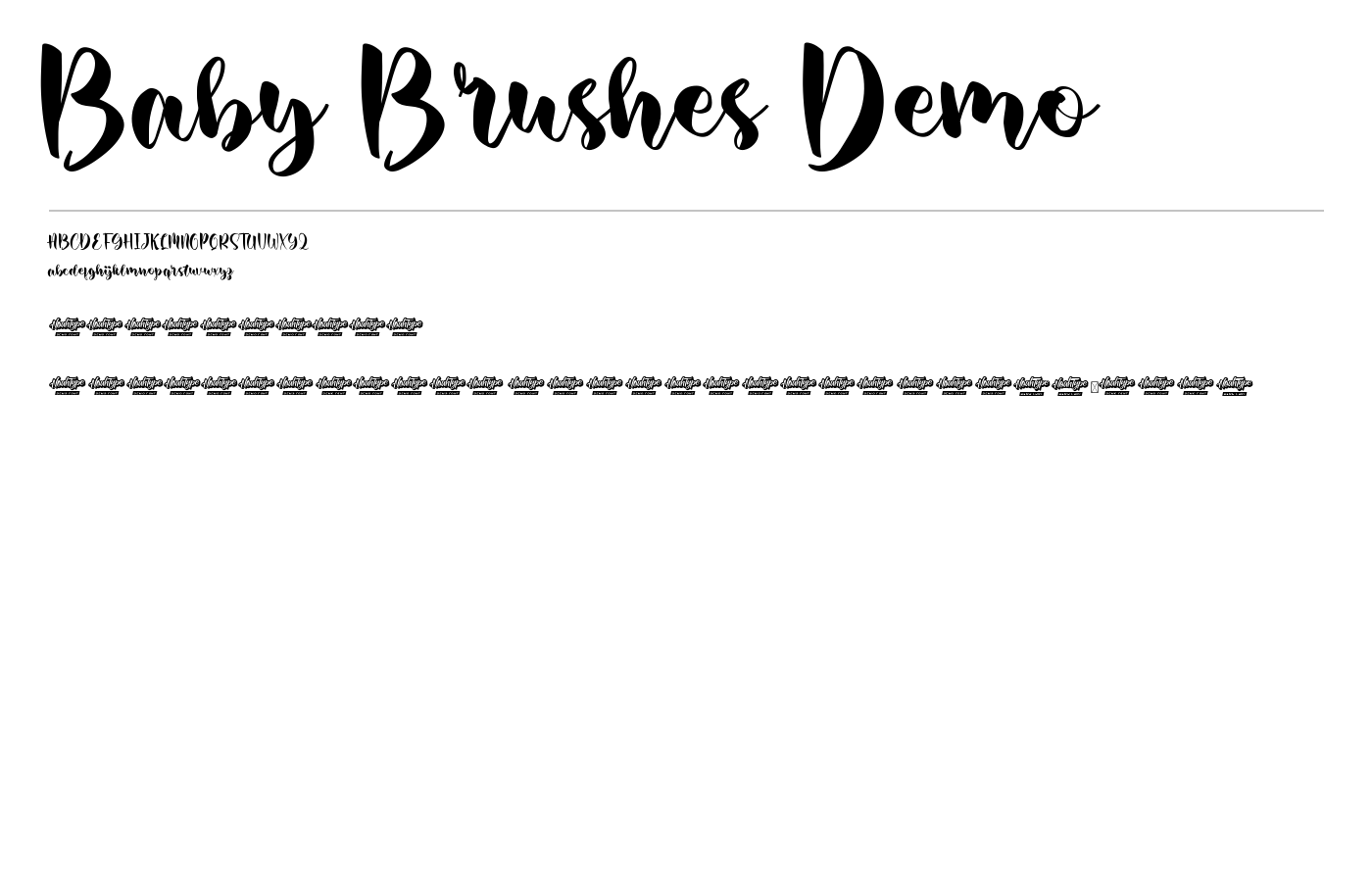
Baby Brushes Demo is a lively and expressive script font that mimics hand-painted brush strokes with bold, smooth lines and playful curves. Its thick, fluid letterforms give off a casual yet artistic vibe, making it perfect for creative branding, invitations, and eye-catching headlines where a personal, warm touch is desired. This font works well for projects that want to convey friendliness and creativity with a modern handmade feel.
Baby Brushes Demo Font
About Baby Brushes Demo Font
| Font family | Baby Brushes Demo Font |
| Designer | Widiyanti |